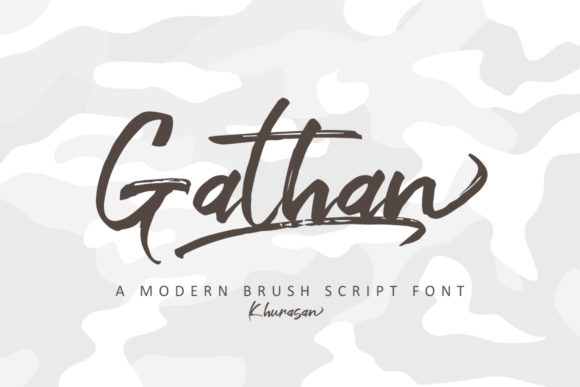
Gathan: A Script Handwritten Font for Captivating Campaigns
It was 9 AM on a Monday, and I had just landed the contract to design a full promotional suite for an upcoming luxury bridal brand launch. My first task? Creating a set of Instagram posts that would build anticipation over the next two weeks. As I opened my design software, I knew one thing right away — this campaign needed a font that screamed elegance and warmth. That’s when I reached for Gathan, a script handwritten font that effortlessly blends charm with sophistication.
Gathan for Wedding Invitations and Elegant Branding
The client wanted to position their brand as both exclusive and approachable, a delicate balance in visual language. For the wedding invitations, which were also part of the brand's lookbook, I needed something that felt personal yet polished. Gathan fit like a glove. Its fluid strokes and subtle texture gave each character a handcrafted feel without sacrificing clarity. The font didn’t just look good — it felt good. It added a layer of intimacy to the message while still maintaining a high-end aesthetic.
I layered Gathan with a clean sans serif for supporting text, ensuring that the invitation read easily on mobile screens but still exuded the romance and grace required for such a special event. When paired with soft blush tones and gold foil accents, the font elevated the entire piece into a tangible experience — not just a design.
Using Gathan in Social Media Graphics for Seasonal Promotions
A few months later, I found myself working on a seasonal sale campaign for a boutique stationery line. They were launching a limited-edition thank you card collection and wanted their social media posts to reflect the same handwritten warmth as their products. Gathan came to mind immediately. It’s not just any script handwritten font — it’s one that carries emotional weight and authenticity.
In crafting the Instagram carousel, I used Gathan for headlines and decorative callouts. The goal was to create a sense of urgency and exclusivity, but also to make customers feel personally invited to engage. On thumbnails and story highlights, where space is tight, the font’s legibility shone through. Even at smaller sizes, Gathan maintained its elegance, making sure our message was clear and compelling across fast-scrolling feeds.
Why Gathan Works Well for Short Headlines and Callouts
When designing for digital ads or Pinterest banners, the challenge is always balancing creativity with readability. Gathan excels in short bursts of text — perfect for display fonts in teasers, quote graphics, or product headers. Its open letterforms and consistent rhythm allow it to be scannable even in small formats. In one case, I used it for a YouTube thumbnail set promoting a lifestyle vlog. The bold use of Gathan in the title helped the video stand out among others in the feed, increasing click-through interest from viewers.
Gathan in Logo Design and Branded Templates
One of the most powerful ways I’ve used Gathan is in logo design. A local artisanal candle company approached me to help rebrand their packaging and website. Their voice was all about “handmade with love,” so we needed a typeface that could mirror that sentiment. Gathan provided the ideal bridge between professionalism and personalization.
By using the font in their logo and extending it into branded templates for business cards, packaging labels, and greeting cards, the brand achieved a cohesive identity. This consistency is crucial in campaigns — it builds recognition and trust. Every time a customer saw Gathan in their content, they felt connected to the brand’s ethos. And let’s face it, in a world of impersonal marketing, that kind of connection is gold.
Readability Tips for Mobile Screens and Thumbnails
While Gathan is undeniably beautiful, it’s not just about aesthetics. Real marketers know that visuals must work hard. Especially on mobile, where users often scroll past in seconds, the font needs to be both striking and readable. I always start by testing Gathan at different sizes and spacing levels. Here are a few tricks I’ve learned:
- Use lighter weights for large display areas like hero headers.
- Opt for bold styles in thumbnails or image overlays to ensure visibility.
- Limit ligatures and alternates in fast-scrolling environments; keep it simple but impactful.
- Pair it with a neutral sans serif (like Lato or Open Sans) for body text to maintain contrast and hierarchy.
This attention to detail made a huge difference in how the audience interacted with the content. Whether it was a greeting card or a landing page headline, the font never lost its appeal — because it was designed to communicate clearly as well as beautifully.
Creating a Cohesive Webinar Promotion Using Gathan
Last quarter, I was tasked with building a webinar promotion for a wellness coaching platform. The theme revolved around mindfulness and intentionality — values best expressed through a creative font that feels genuine. Gathan brought the right tone to the table. Used in the main title and key call-to-action buttons, it helped convey a message of care and craftsmanship.
We created a series of email banners and Facebook ad creatives, each featuring Gathan in varying styles. The font became a signature element of the campaign, reinforcing the brand’s personality with every touchpoint. It wasn’t just a decorative choice — it was a strategic decision that influenced how the audience perceived the message and the messenger.
Font Pairing Strategies for Gathan
One of the joys of using Gathan is how well it plays with other fonts. Because it’s a script handwritten font, it naturally complements more structured typography. In one project, I paired it with Montserrat for a product teaser on an online shop banner. The result was a harmonious blend of creativity and clarity — exactly what we needed to catch attention and drive clicks.
For editorial designs like blog headers or Pinterest pins, I’ve seen great results combining Gathan with a minimalist serif font. The contrast between the expressive script and the grounded serif adds depth and visual interest. Just remember: always test your pairings in real layouts. What looks great in isolation might not perform well under campaign conditions.
Gathan for Quote Graphics and Reels Covers
If there’s one place where Gathan truly shines, it’s in quote graphics. A recent project involved creating a week-long Instagram content series centered around daily inspiration quotes. We chose Gathan for the quote text, and it transformed each post from standard to standout. The handwritten style made the messages feel more authentic and relatable — especially important for an audience seeking motivation and connection.
On reels covers, where you have only a split second to grab attention, Gathan’s dynamic curves and organic flow helped the titles pop. I recommend using it sparingly in these cases — too much can overwhelm, but the right amount creates intrigue. In one instance, I overlaid it on a dark background with light stroke effects. The contrast worked perfectly, making the text easy to read while still feeling artistic.
Understanding Gathan’s Included Styles and Commercial Use
Before jumping into a new campaign, I always check the included styles of a font. With Gathan, there are multiple variations that offer flexibility. From lighter touches to bolder expressions, each style tells a slightly different story. This is particularly useful when building a promotional content set that spans multiple platforms and formats.
Also essential is understanding the commercial font licensing. If you’re planning to use Gathan for logos, merchandise, or web design, make sure the license allows for those uses. I once had to pivot mid-project because a font lacked proper web embedding rights — avoid that headache by vetting your assets upfront.
Bringing Personality to Email Banners and Landing Pages
Email marketing is another area where Gathan has become a go-to. One of my clients runs a subscription box service focused on self-care and gratitude. Their email banners needed to feel warm and inviting. By using Gathan in the subject lines and header text, we managed to add a human touch that resonated deeply with their audience.
On landing pages, where conversion hinges on trust and clarity, I used Gathan selectively. It worked best in the headline and subheadline sections, giving the page a personal flair without compromising the professional layout. The key is to use it where you want to evoke emotion — and then rely on a more neutral font for the details.
Design Assets and Multilingual Support
When preparing design assets for international audiences, multilingual support becomes critical. Gathan offers solid coverage in many languages, making it a reliable choice for global campaigns. Whether it’s for a European thank you card collection or a Latin American greeting card line, the font adapts gracefully, preserving its charm across regions and cultures.
I also appreciate how it handles accented characters and diacritics — no awkward spacing or misalignment. This level of polish is what separates a premium font from a generic one. And in branding, especially for handwritten-style messaging, precision matters.
How Gathan Enhances Brand Recognition and Campaign Consistency
Brand recognition isn’t just about colors and logos — it’s also about typography. When a brand consistently uses Gathan across all its materials, from social media posts to packaging design, it creates a familiar visual rhythm. This familiarity helps people connect faster, whether they’re seeing a logo for the first time or scrolling through a feed.
During a recent campaign for a handmade jewelry line, we used Gathan in everything from product tags to the website’s navigation bar. The result was a unified identity that customers began to associate directly with the brand. You don’t need to force a font into every corner of a design — just enough to make it memorable.
Practical Uses Across Platforms
Here’s how I’ve applied Gathan in various scenarios:
- Instagram Stories: Highlighted phrases and countdown timers with a touch of elegance.
- Pinterest Pins: Used for inspirational quote overlays and product taglines.
- YouTube Thumbnails: Made headlines more engaging with its expressive script.
- Webinar Headers: Added warmth to educational content without being distracting.
- Email Sign-Offs: Personalized the closing lines to feel more handcrafted and sincere.
Each use case leveraged the unique qualities of Gathan — its ability to communicate both professionalism and heart.
Gathan for Display Text and Supporting Typography
As a marketer, I’m always looking for a way to guide the viewer’s eye. Gathan is excellent for display text — think of it as the lead actor in your visual story. But it can also serve as a supporting role when used in conjunction with more functional typography.
In a recent digital ad set for a curated gift box startup, we used Gathan for the main headline and a modern typography system for the supporting copy. The contrast helped highlight the premium nature of the product while keeping the information digestible. This kind of thoughtful application makes the font versatile beyond just being a decorative asset.
Final Touches: Testing and Adjusting for Impact
After laying out a design, I always do a final pass to test how Gathan holds up across devices and screen sizes. Does it read well on a mobile preview? How does it look in grayscale for black-and-white printing? These considerations ensure that the font doesn’t just look good now, but continues to perform well in the long run.
Another trick I use is adjusting the spacing and tracking slightly depending on the context. In some cases, tightening the letters gives a more intimate vibe. In others, adding a bit of space makes the text breathe better on larger canvases. These small tweaks can significantly enhance the user experience and message clarity.
In the end, Gathan isn’t just another script handwritten font — it’s a tool that helps brands tell their stories with authenticity and flair. Whether you’re designing a wedding invitation, a thank you card, or a promotional graphic for your latest product, Gathan brings a touch of humanity that digital audiences crave. So next time you're prepping a campaign and need a font that feels personal yet professional, remember — Gathan is ready to write your next success story.